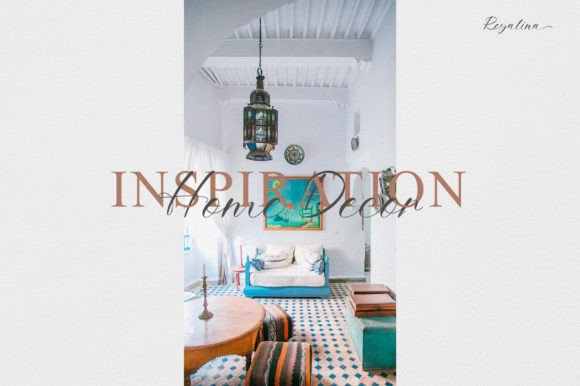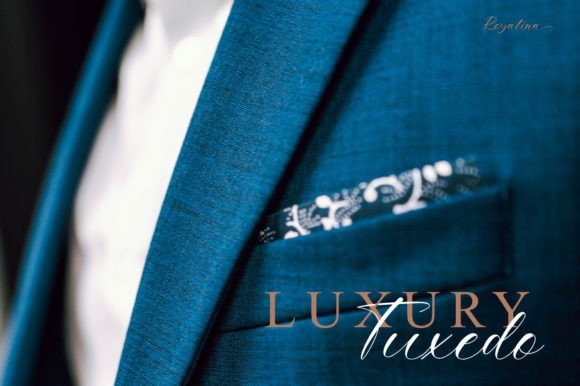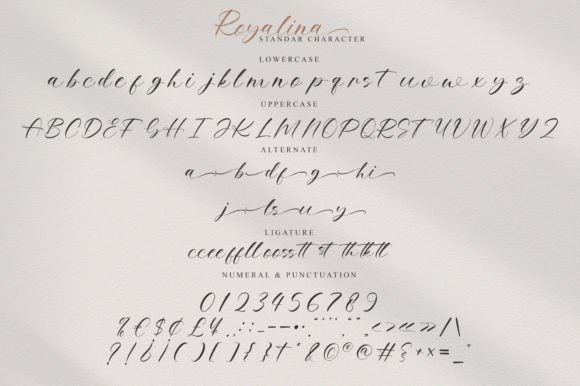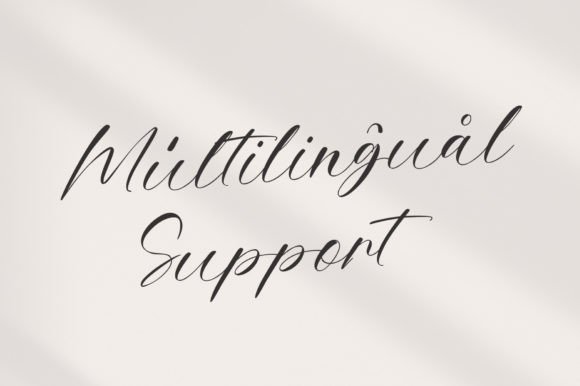
Introduction to Royalina Font
Have you ever been stuck in a creative rut, searching for that perfect font to elevate your project from ordinary to extraordinary? I know I have. It’s like trying to find the missing piece of a puzzle – you know it’s out there, but you can’t quite put your finger on it. That’s where the Royalina Font comes in, a flowing handwritten font that will transport you to a world of elegance and sophistication.
As a designer, you’re always on the lookout for high-quality design resources that will give your projects that extra oomph. And let me tell you, the Royalina Font is a game-changer. With its incredibly distinct and timeless style, it’s the perfect addition to any creative project. Whether you’re working on a branding project or a simple social media graphic, this font is sure to make a statement.
Key Features of Royalina Font
- Unique characteristics include a luxurious feel, intricate details, and a sense of sophistication, making it perfect for high-end designs.
- Designed to be versatile and adaptable, Royalina Font can be used in a variety of creative projects, from branding and marketing to editorial and publishing.
Honest Review: Royalina Font
As a designer, I’m always on the lookout for high-quality fonts to elevate my creative projects. Recently, I stumbled upon the Royalina Font, and I was excited to give it a try.
- Unique and elegant design: The Royalina Font has a distinctive flair that sets it apart from other fonts. Its elegant lines and subtle curves make it perfect for projects that require a touch of sophistication.
- Limited font weights: While the Royalina Font has a beautiful design, it’s limited to a few font weights. This might be a drawback for designers who need a wider range of font weights for their projects.
- No extensive character set: The font doesn’t have an extensive character set, which might be a limitation for designers who need to work with non-Latin scripts or special characters.
Overall, I’m impressed with the Royalina Font. Its unique design and transparent background make it a great addition to any designer’s toolkit. While it has some limitations, I think it’s a solid choice for creative projects that require a touch of elegance.
Tips for Getting the Most Out of Royalina Font
For a high-quality, creative project, consider using the Royalina Font with a transparent background to add depth and visual interest.
The Royalina Font is perfect for a variety of projects, including:
Wedding invitations
Business cards
Branding materials